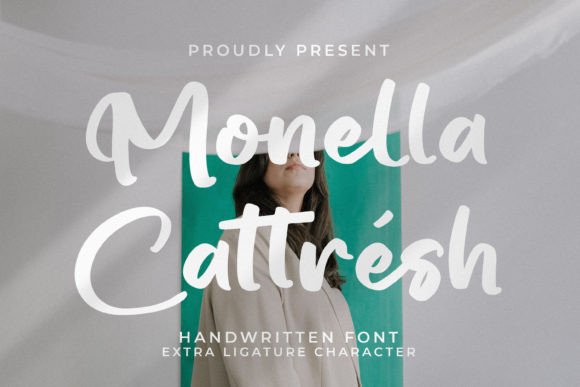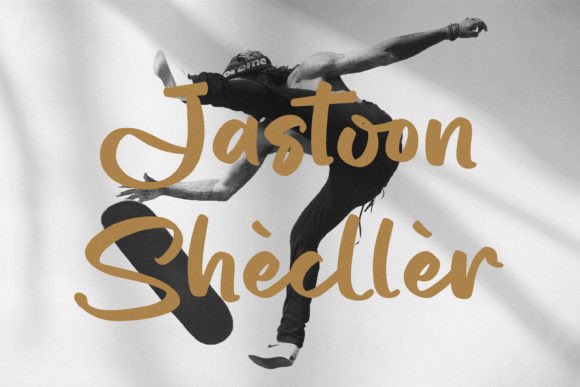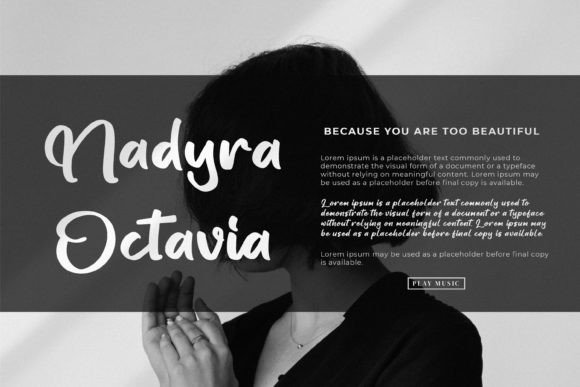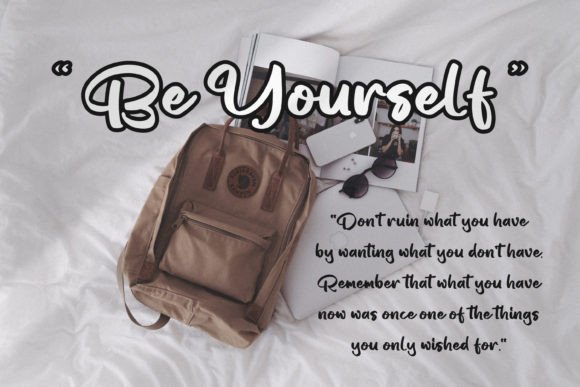
Monella Cattresh Font: Playful Handwritten Font for Cricut & Social Media
About the Monella Cattresh Font
Introducing the Monella Cattresh Font, a beautifully crafted typeface designed to elevate your creative projects. Monella Cattresh is a playful and charming handwritten font that exudes a sense of youthful energy. Its bouncy, irregular strokes create a sense of whimsy, while its rounded edges lend a friendly and approachable feel. Whether used for invitations, social media graphics, or branding materials, Monella Cattresh adds a touch of fun and personality to any project.
Monella Cattresh works exceptionally well in headlines, short taglines, and social media posts where its playful nature shines. It’s ideal for branding projects targeting a young, fun-loving demographic, and also suits invitations and packaging for products with a similar personality. However, its irregular stroke weight makes it unsuitable for body text or lengthy paragraphs; readability suffers at smaller sizes. Avoid using it in user interfaces or situations requiring high legibility.
Pairing Monella Cattresh with a clean sans-serif like Open Sans or Lato provides a strong contrast, grounding its whimsicality. For a more sophisticated feel, consider pairing it with a classic serif such as Garamond or a slightly more geometric sans-serif like Montserrat. These pairings offer visual balance and prevent the design from feeling too overwhelming.
The font’s overall personality is undeniably youthful and friendly, conveying a sense of approachability and lightheartedness. It is best suited for brands and projects that wish to communicate a sense of fun and spontaneity.
Monella Cattresh Font Usage Examples
Monella Cattresh Font Example